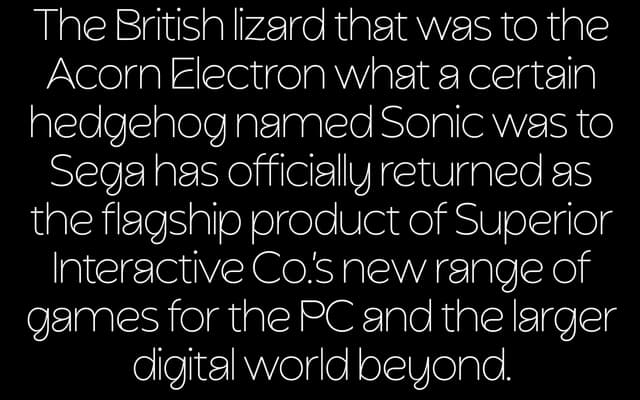
A seven-weight geometric sans from Beasts of England, available as individual styles or as a full family with a variable font file.
Spanning seven weights from Thin to Bold, Acorn covers the range needed for text and display work without italic or condensed companions. The full family purchase includes a variable font file, giving designers weight flexibility in a single file. The foundry's evocative copy ties the name to the Acorn Electron home computer, suggesting a nostalgic but forward-looking sensibility behind the design.
The specimen imagery and the name suggest a clean, geometric sans character; the weight range and minimal description point to a contemporary geometric or humanist sans with no overt decorative qualities.